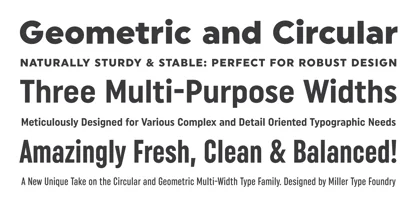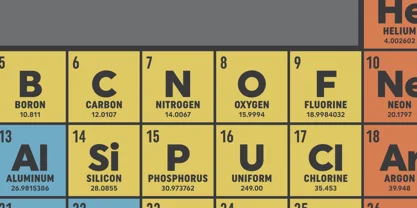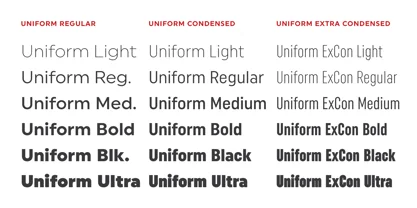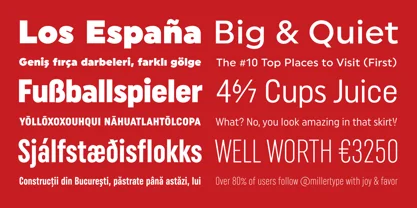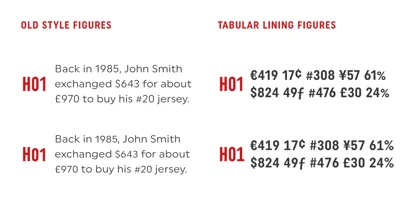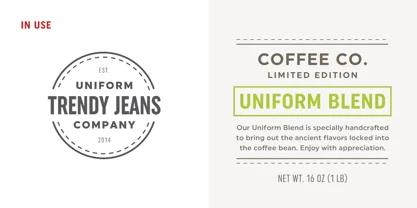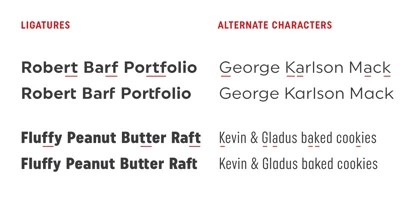
Uniform Font
Uniform is a multi-width geometric type family designed around the circle. The O of the Regular width is based on a circle, the O of the Condensed width is based on 1.5 circles stacked (with straight sides) and the O of the Extra Condensed width is based on two circles stacked with straight sides as well, and all other characters are derived from this initial concept. This unique idea creates a remarkably fresh type family that bridges the gap between circular geometric typefaces and condensed straight-sided typefaces. Uniform also includes many opentype features like Old Style Figures, Tabular Lining Figures, Alternate characters, Ligatures and more. Uniform was first drawn starting with the Black weight. This careful process allows each character to look consistent and balanced through all weights. As a result, the typeface does not ‘break down’ or lose its form in the boldest weights like many typefaces do. The three widths of Uniform make an ideal type family for a host of various uses. From branding to web design, book covers to signage, Uniform is a very versatile solution to complex typographic needs.